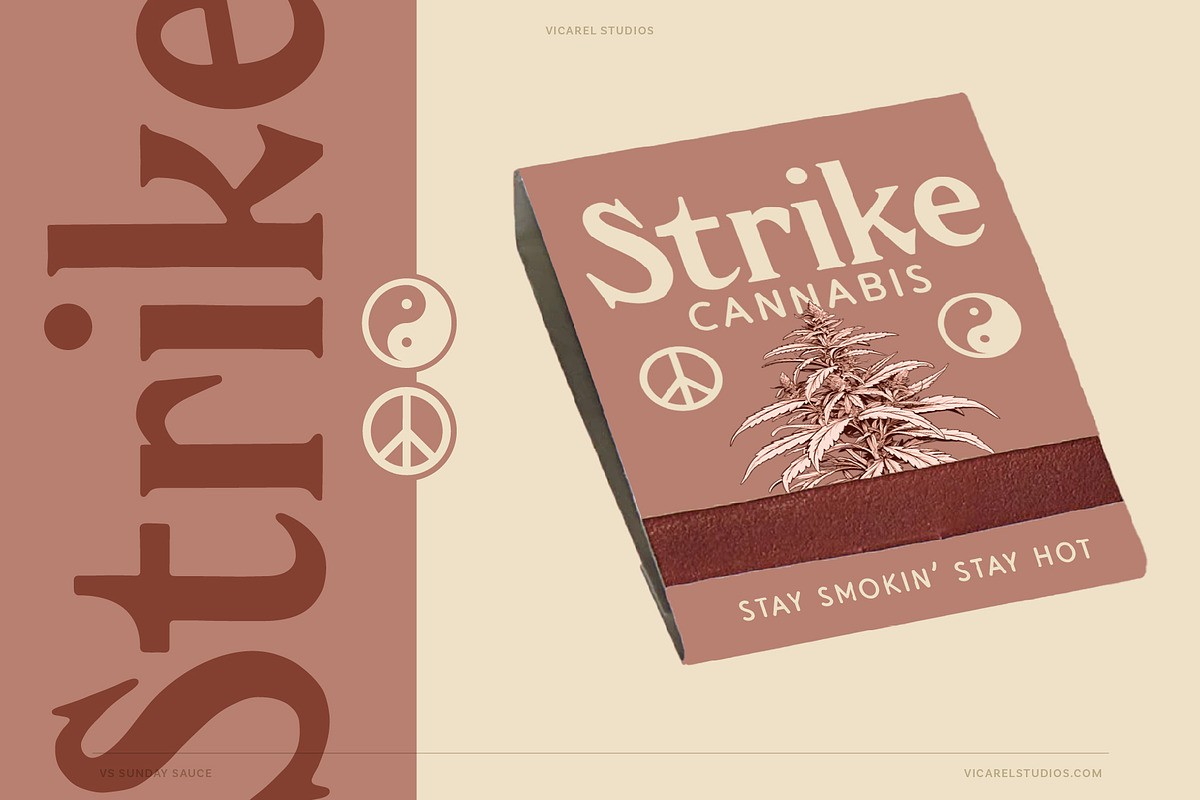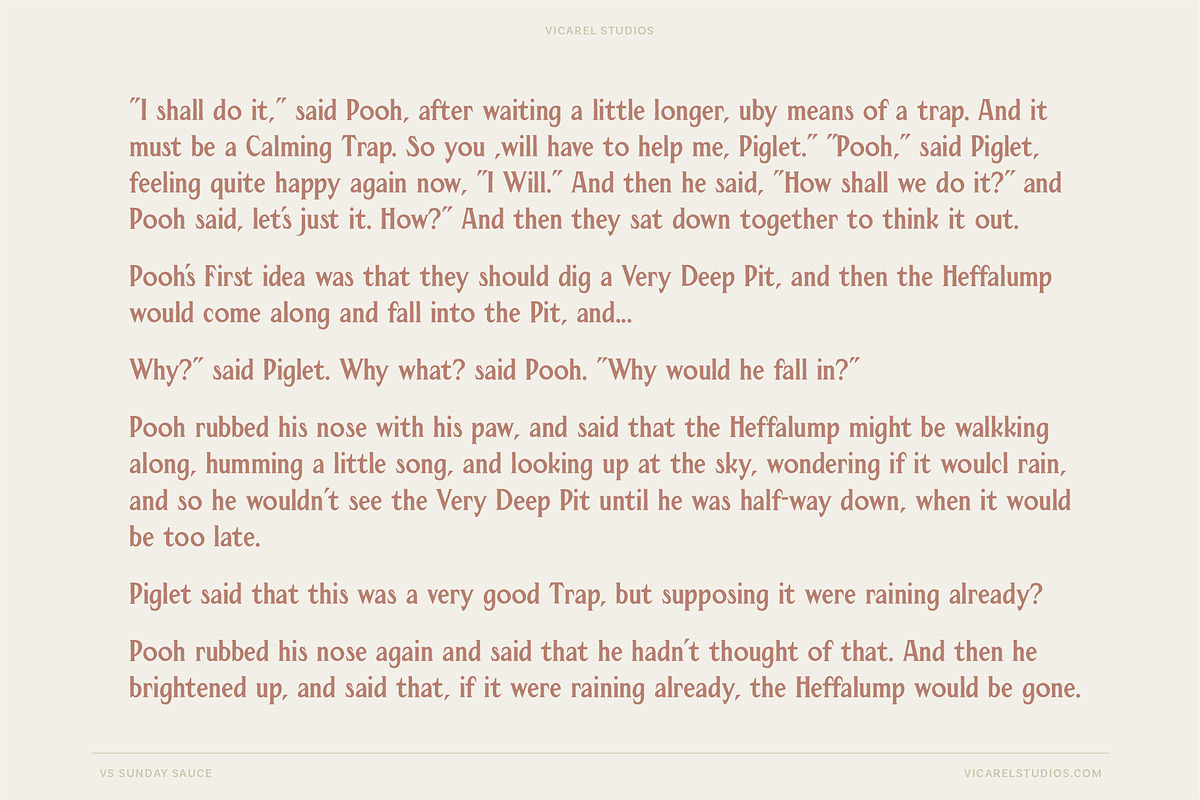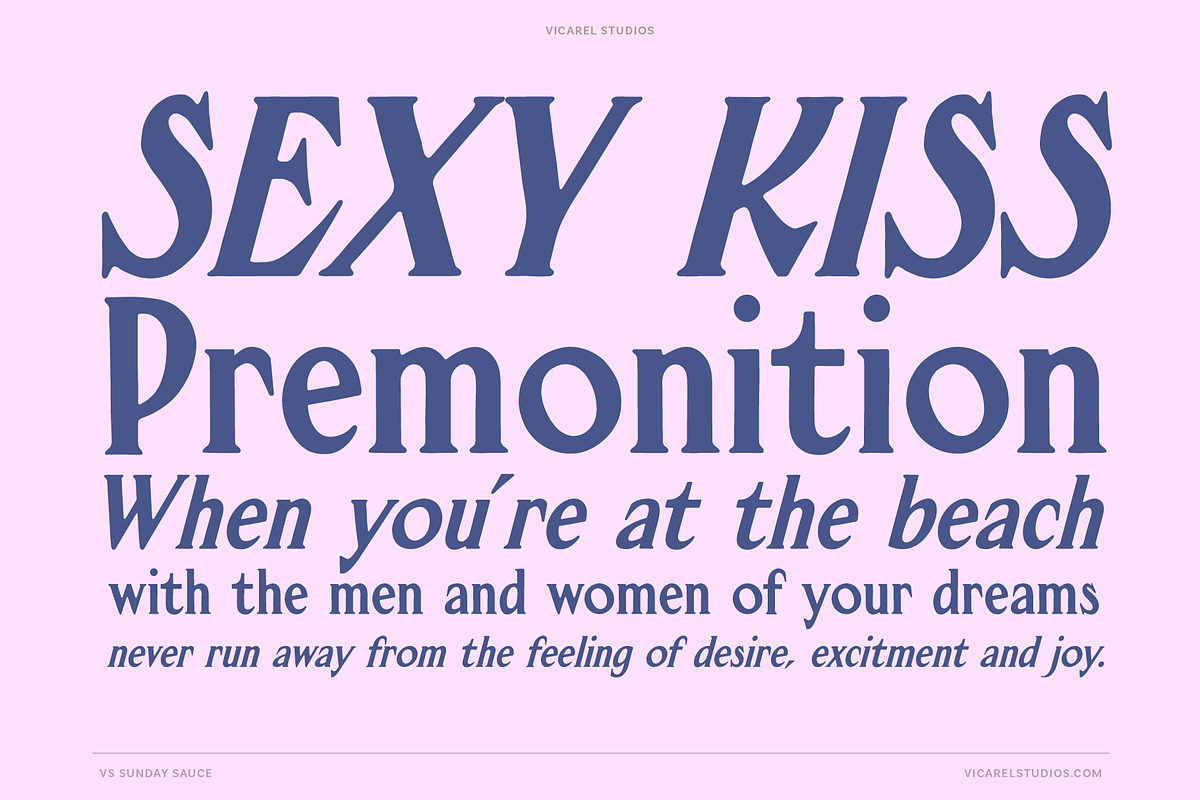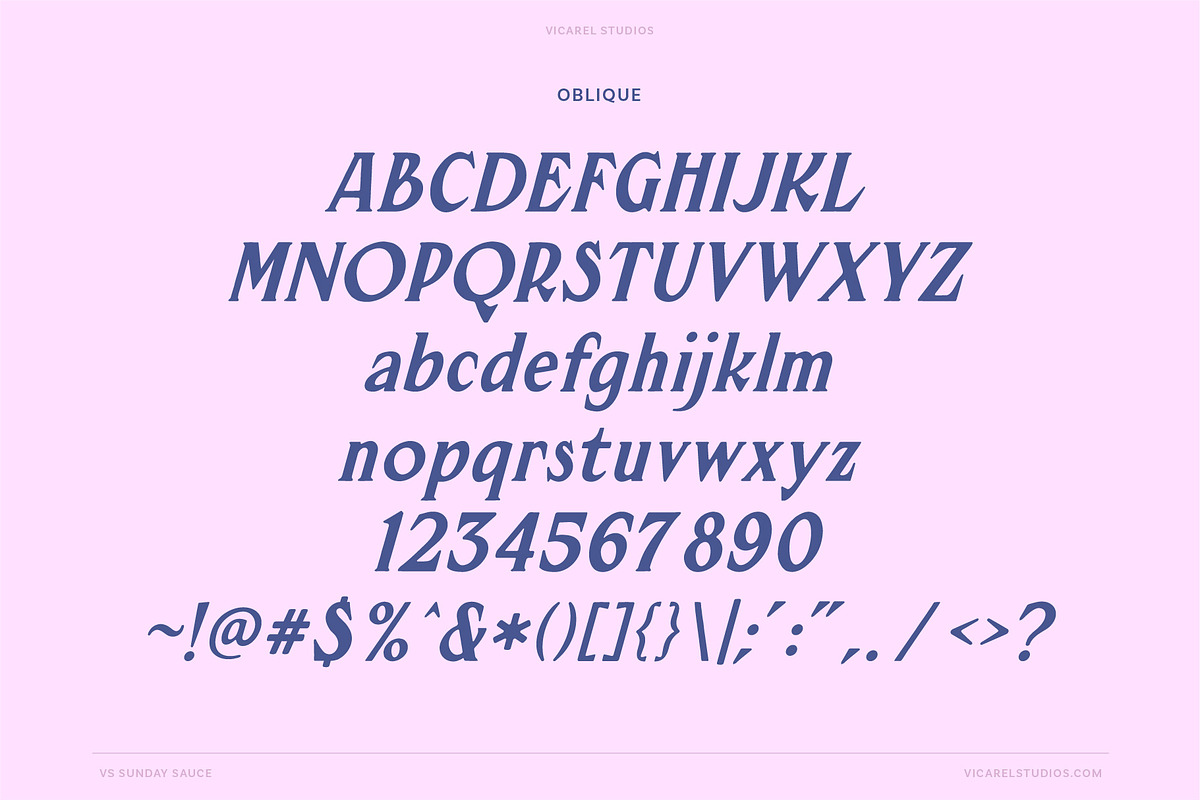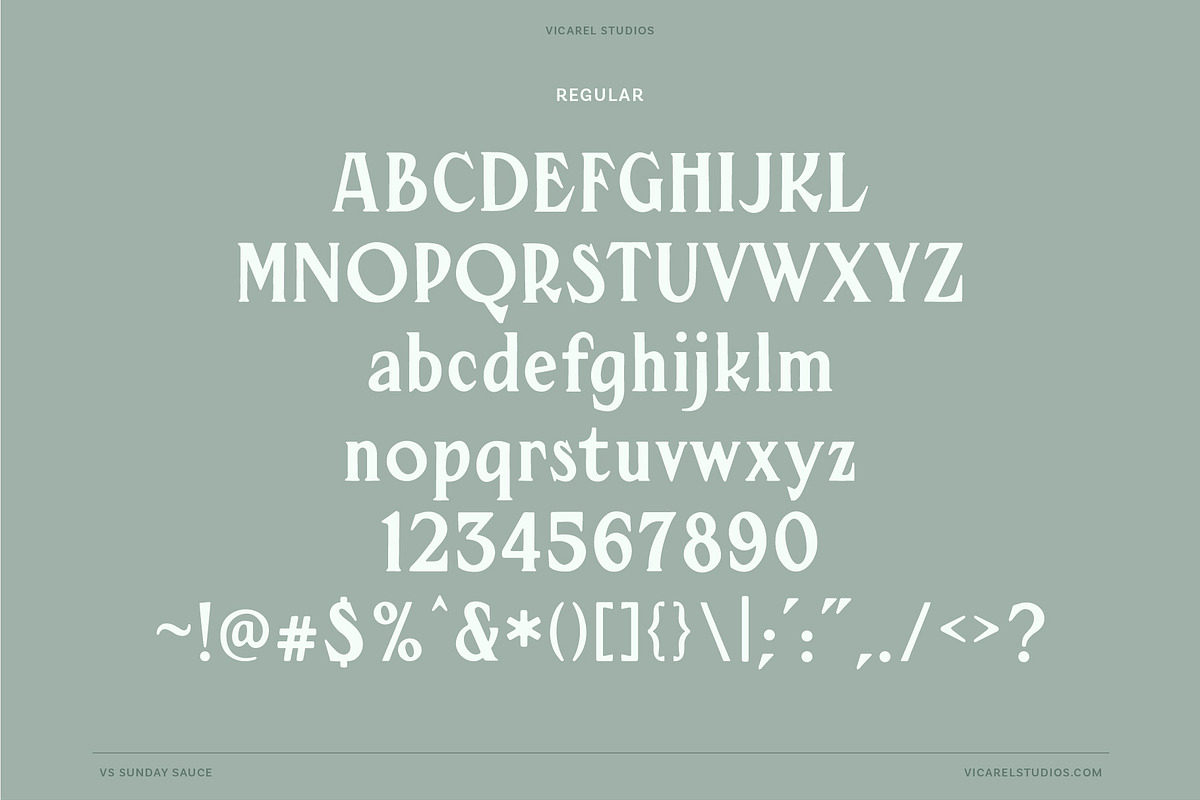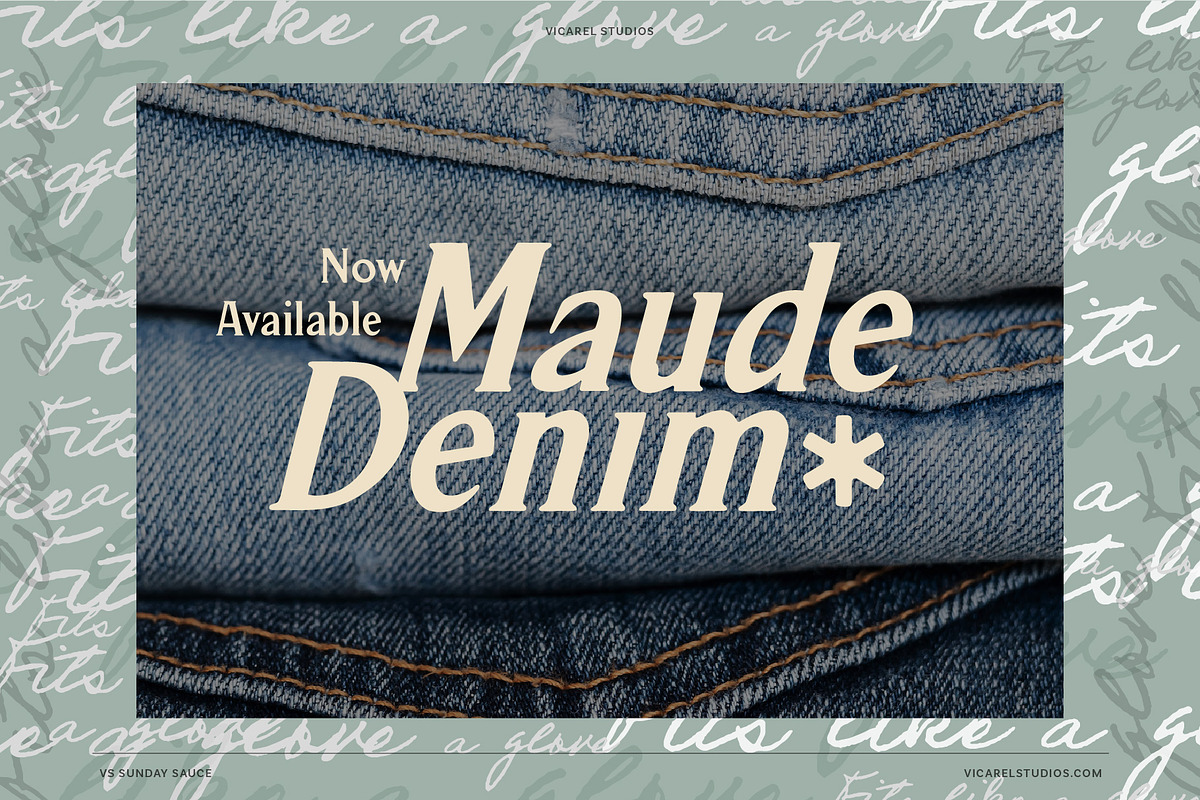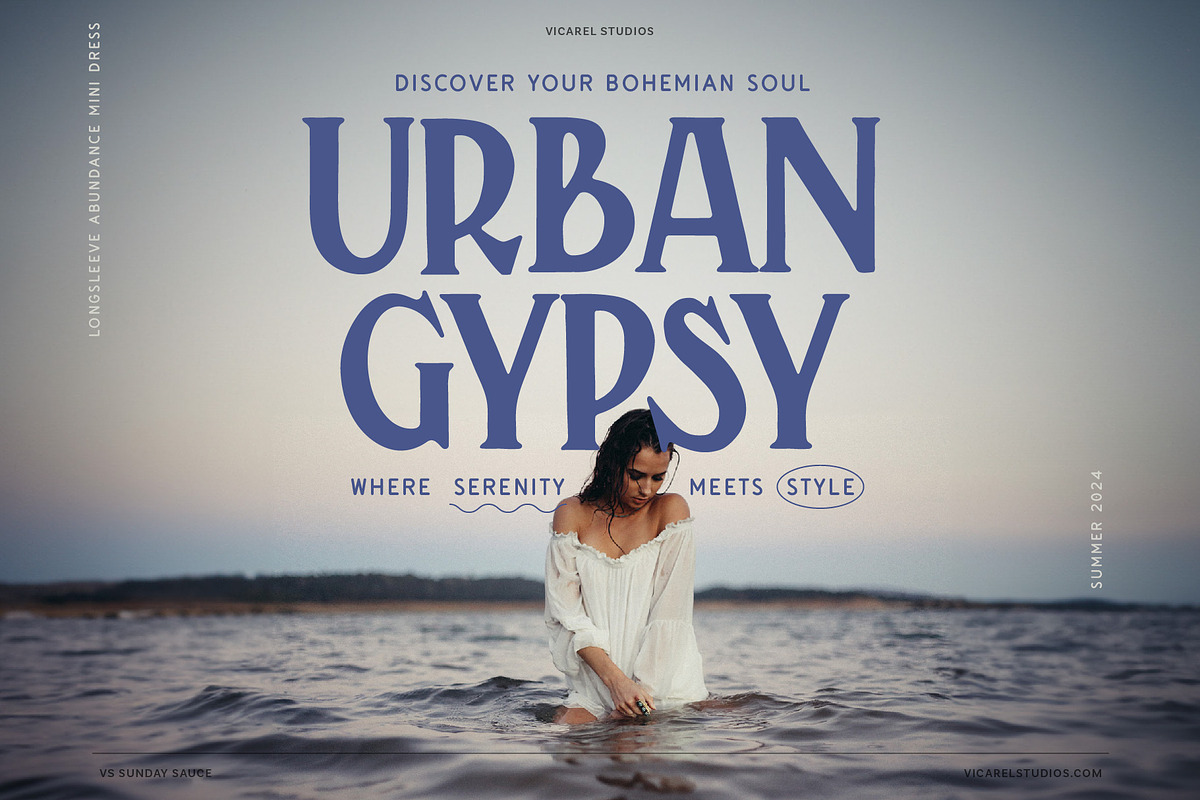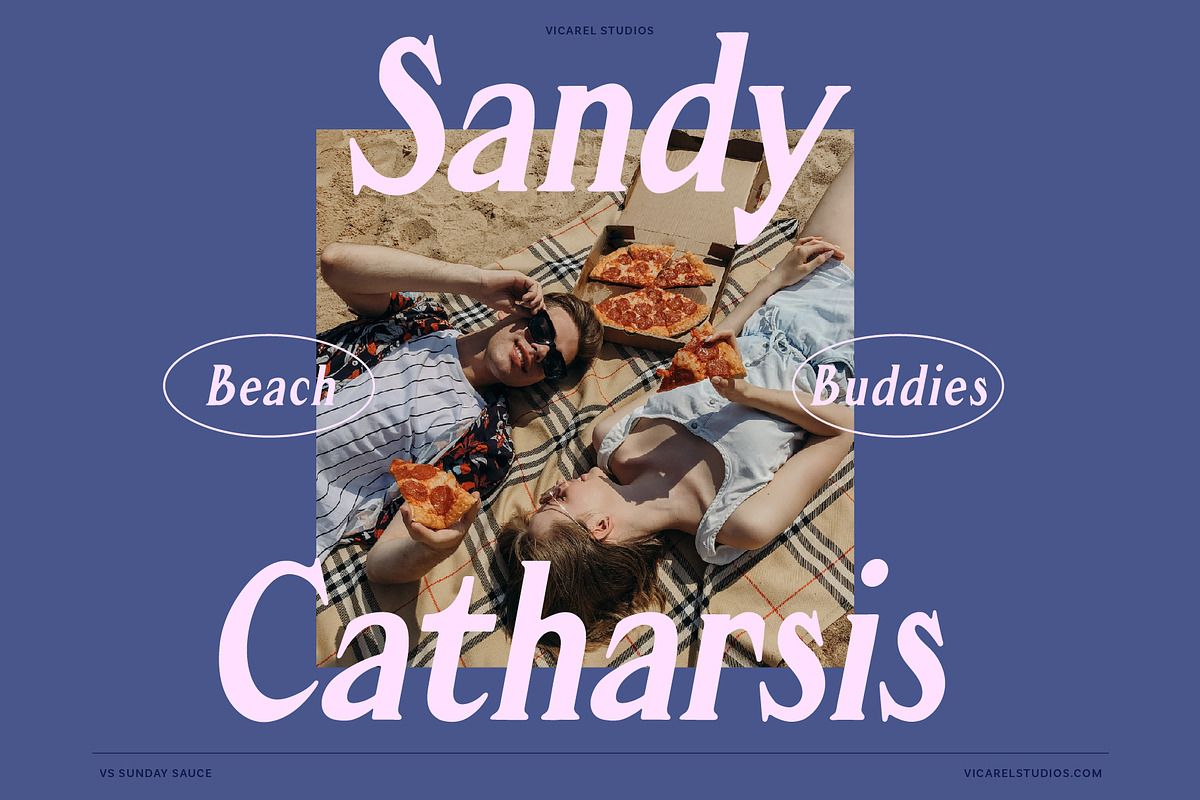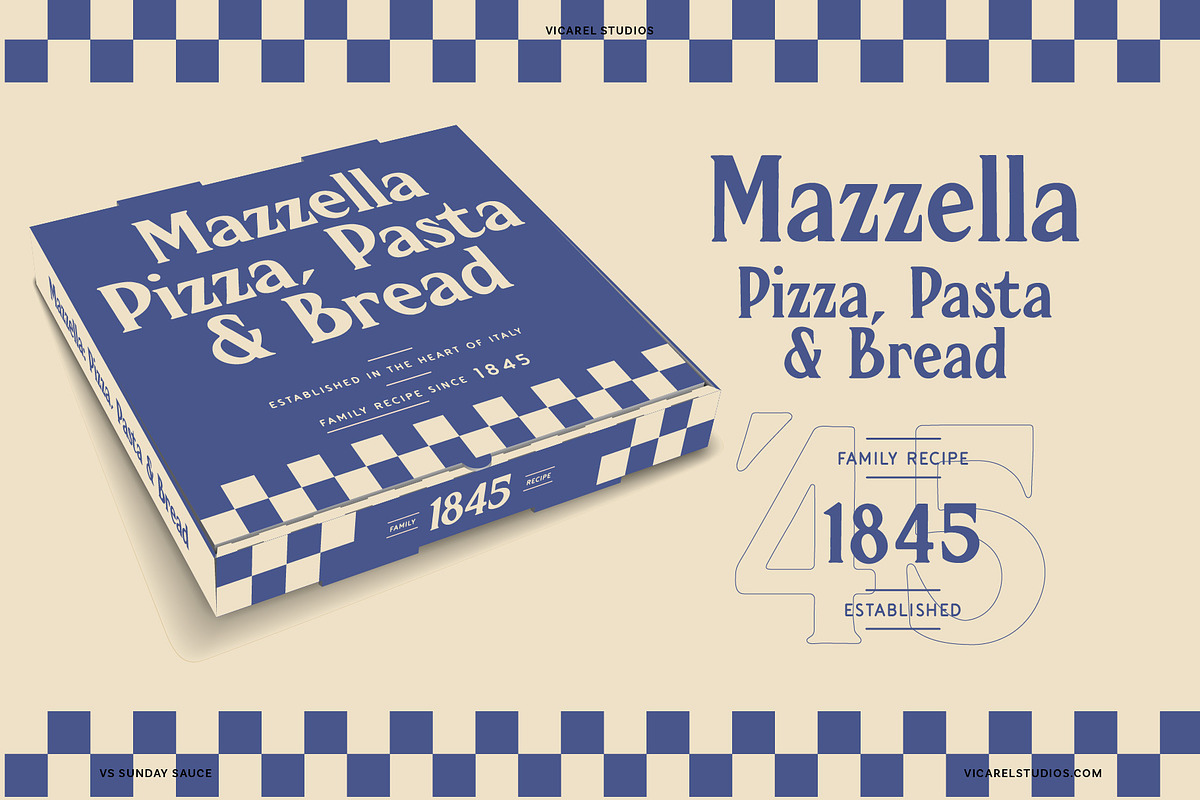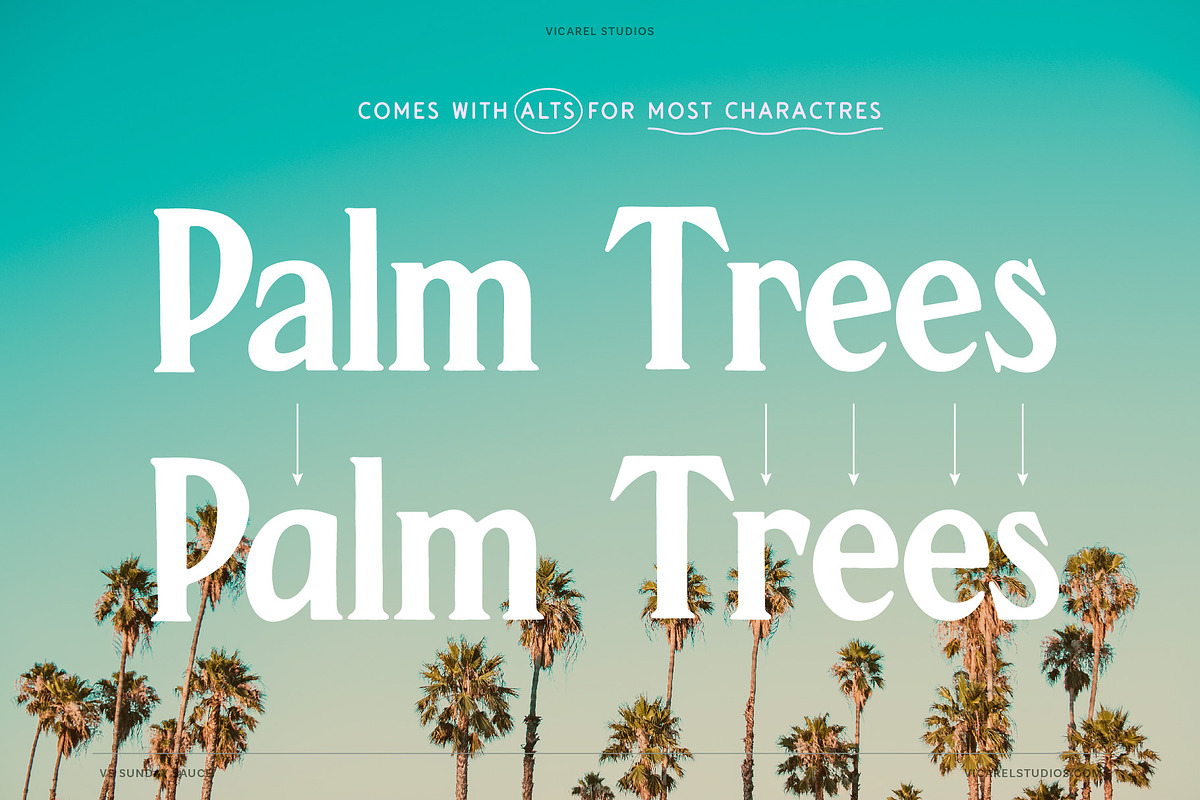
Sunday Sauce, Nostalgic Vintage Font
Introducing Sunday Sauce, a vintage-inspired font that seamlessly blends nostalgia with elegance, making it the perfect choice for your design projects. This timeless serif font comes in two weights—regular and oblique—offering you versatility and style for your graphic design, branding and packaging projects.
Capture the essence of the past with Sunday Sauce's free-spirited vintage charm, bringing a touch of yesteryear to your creations. Ideal for wedding invitations, branding, or projects that need nostalgic 90’s font aesthetics, this hand drawn typeface is bold and versatile.
Whether you're working on magazine titles, posters, logos, or greeting cards, Sunday Sauce's classic appeal will elevate your designs. This hand drawn vintage font functions great as a display and headline type or as body copy.